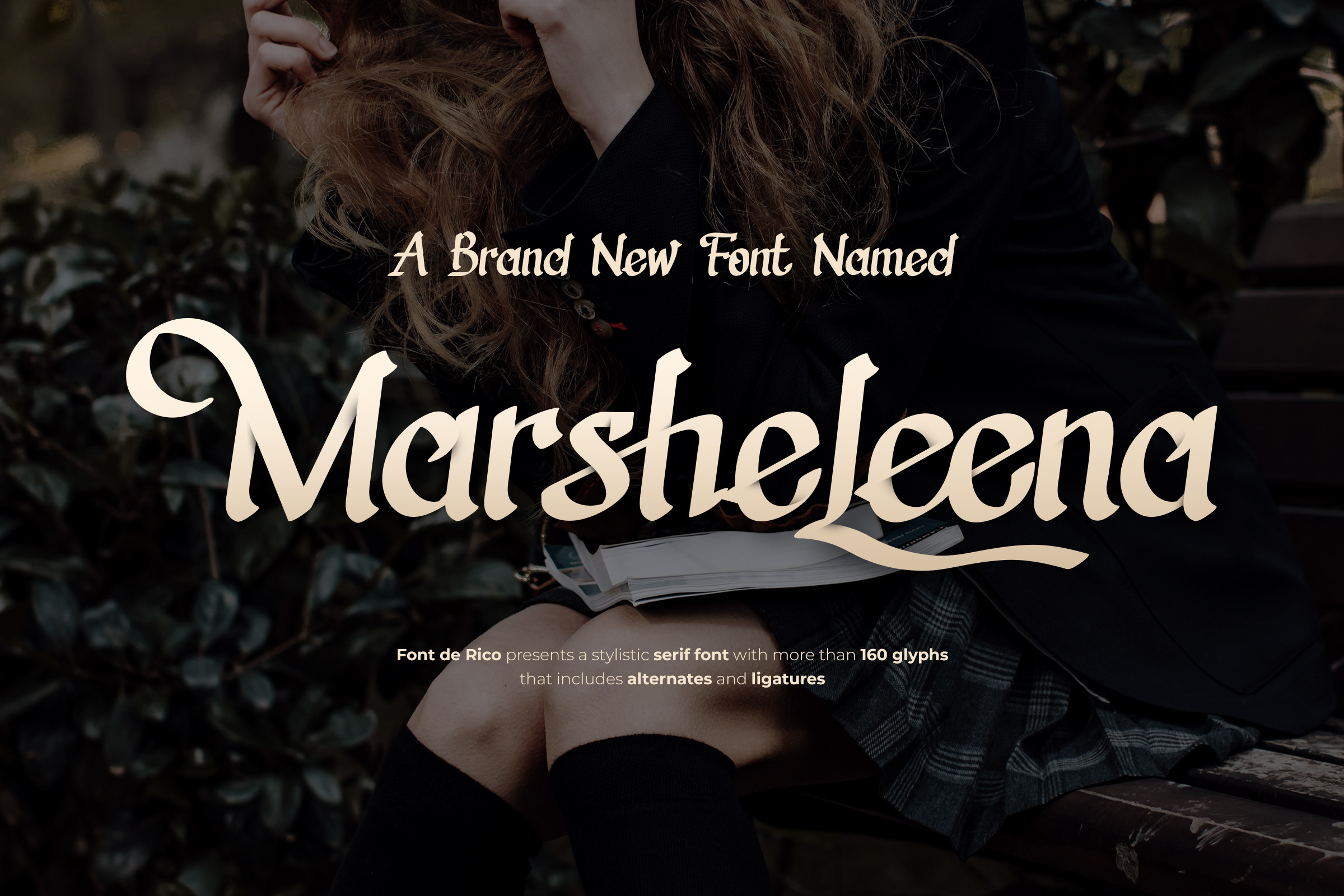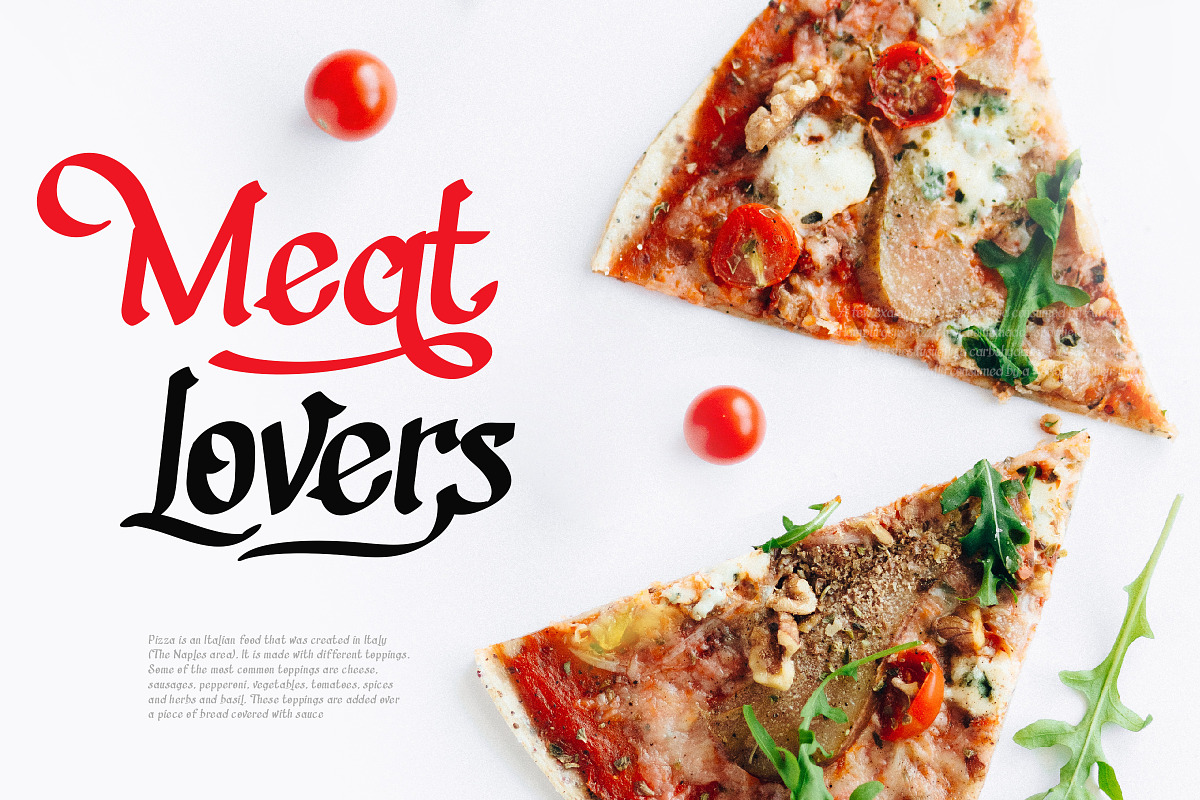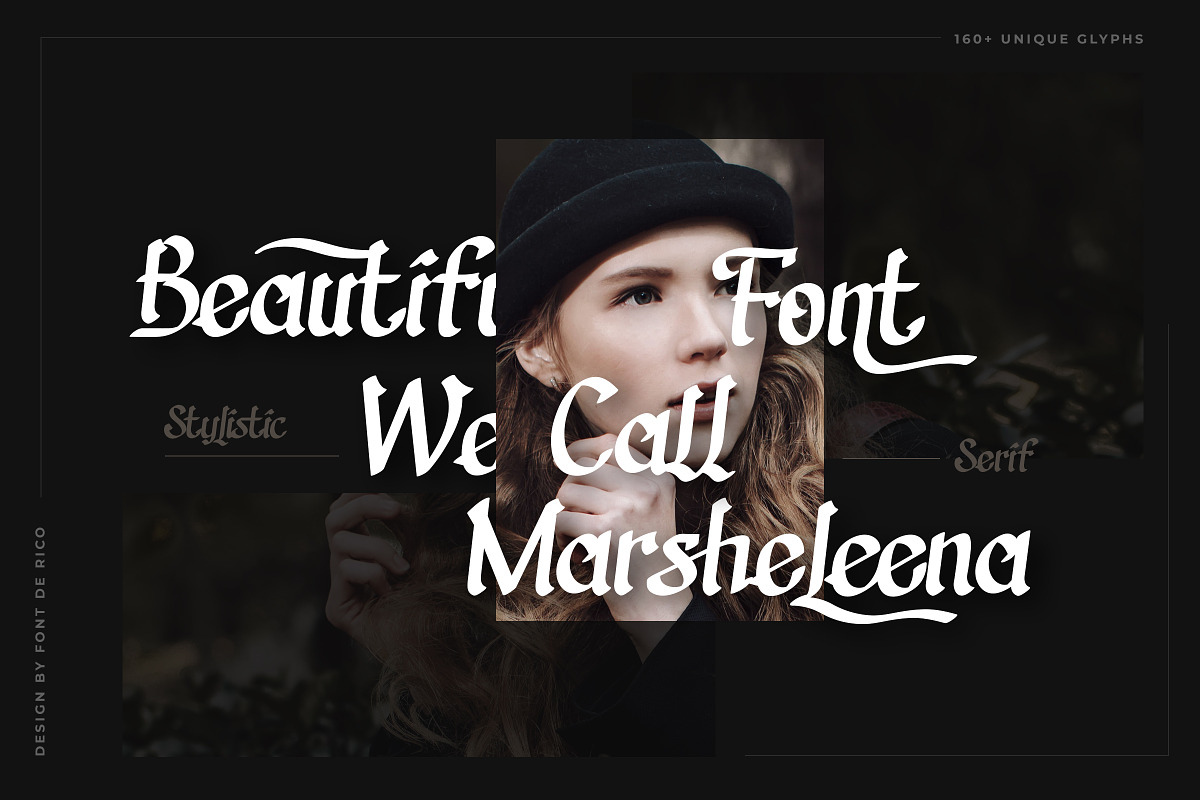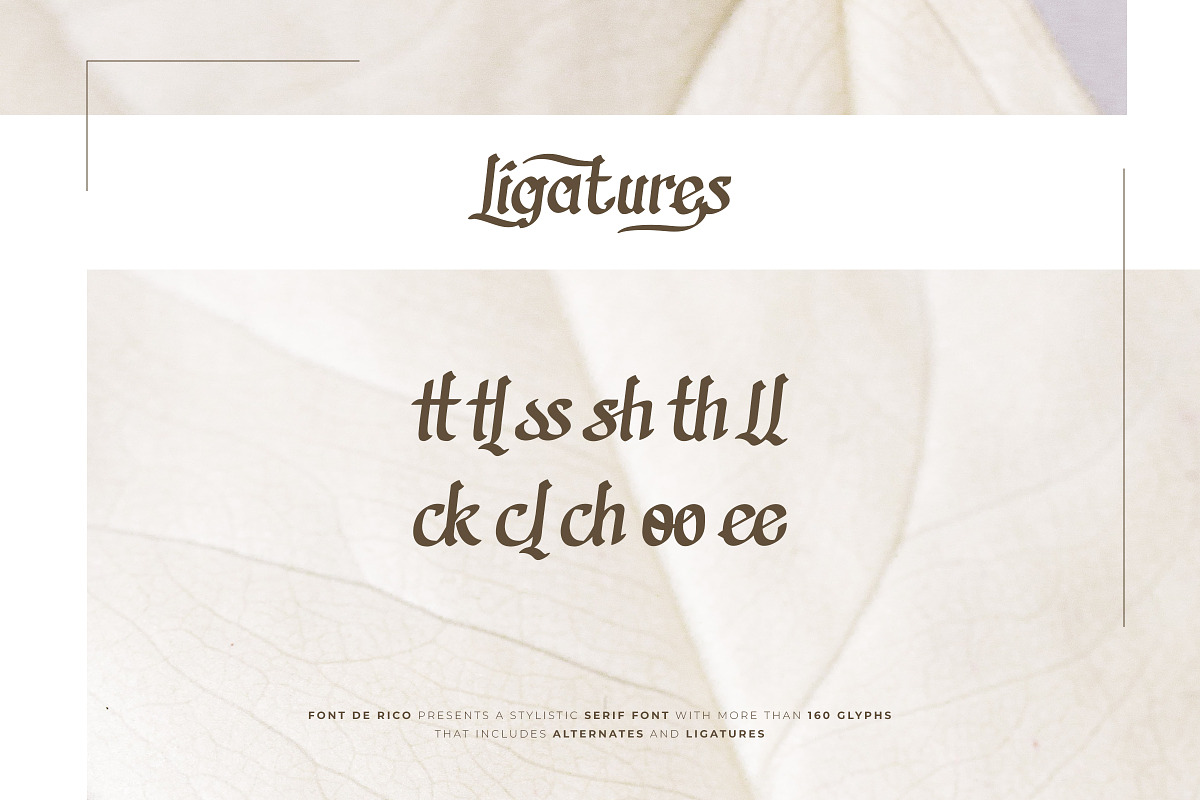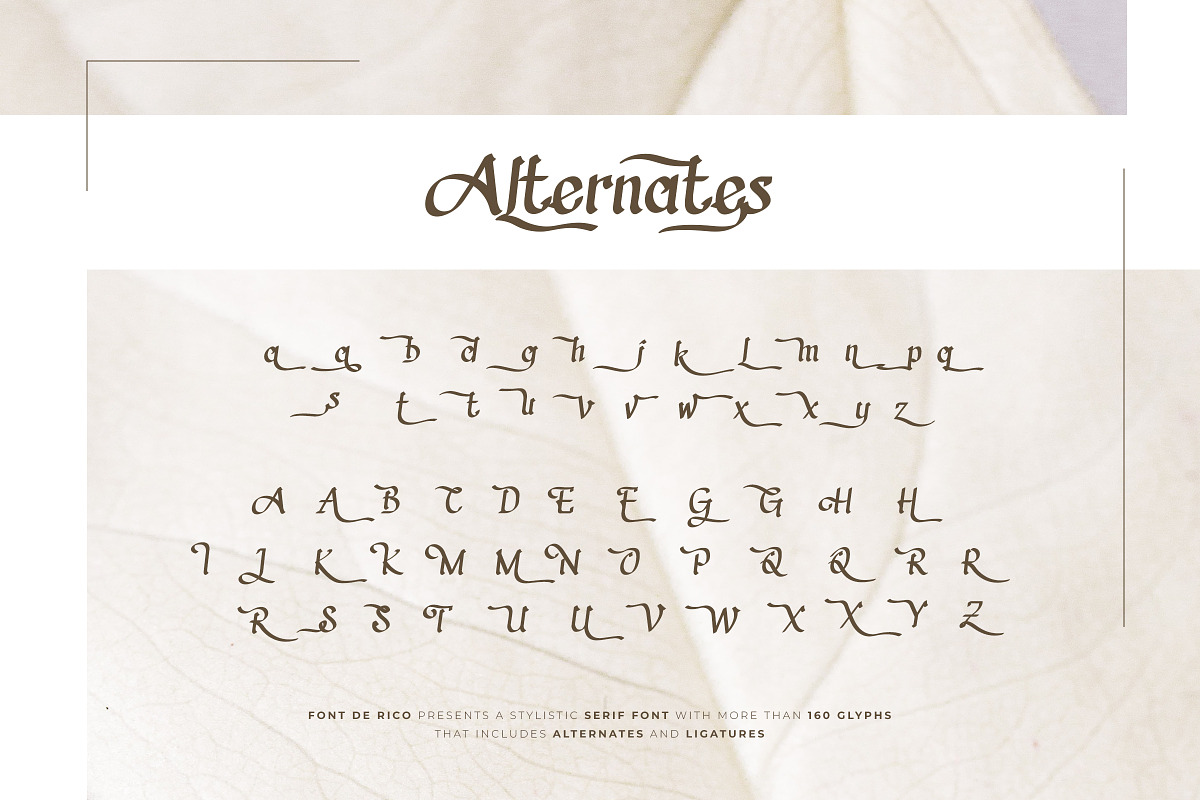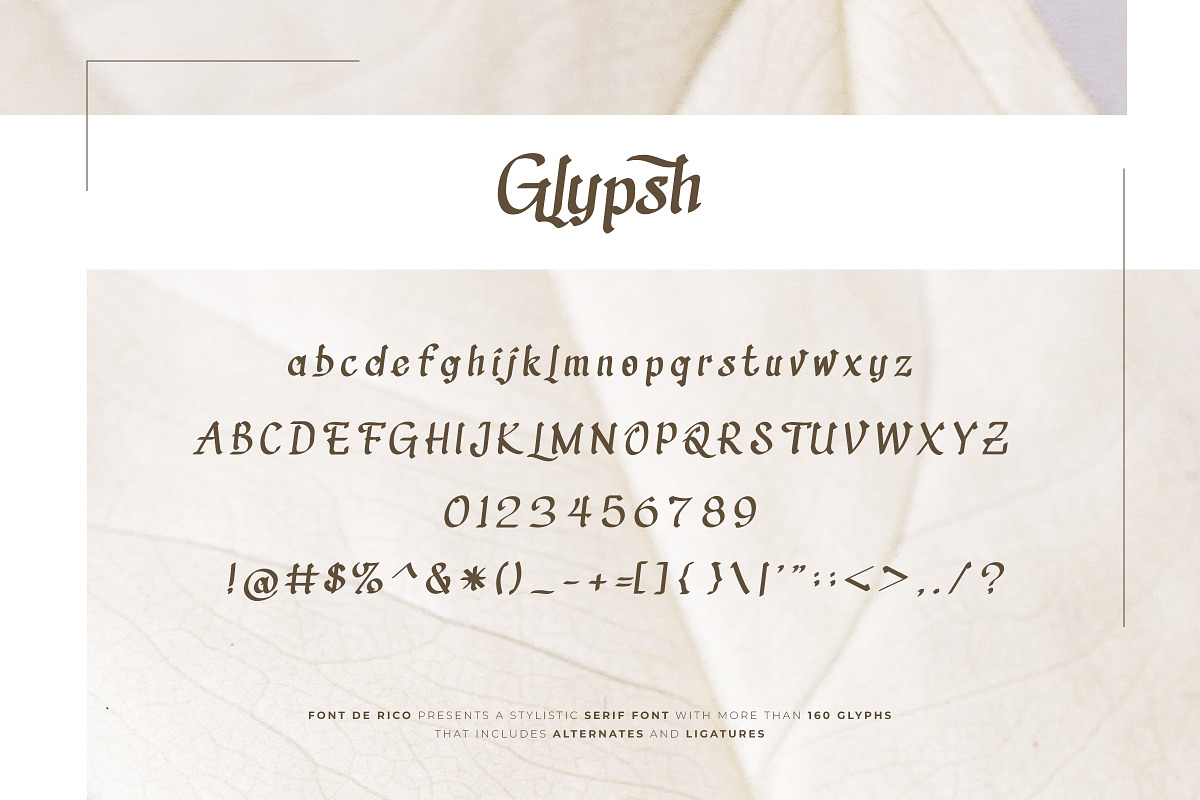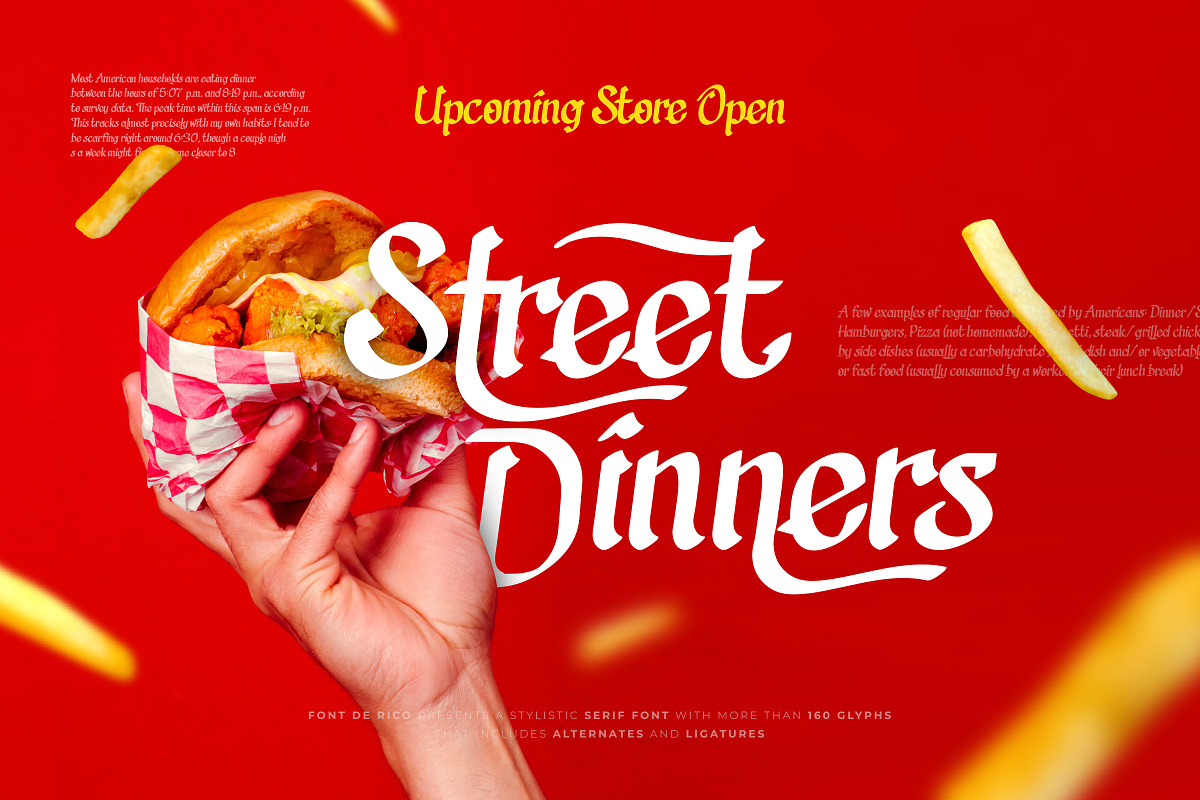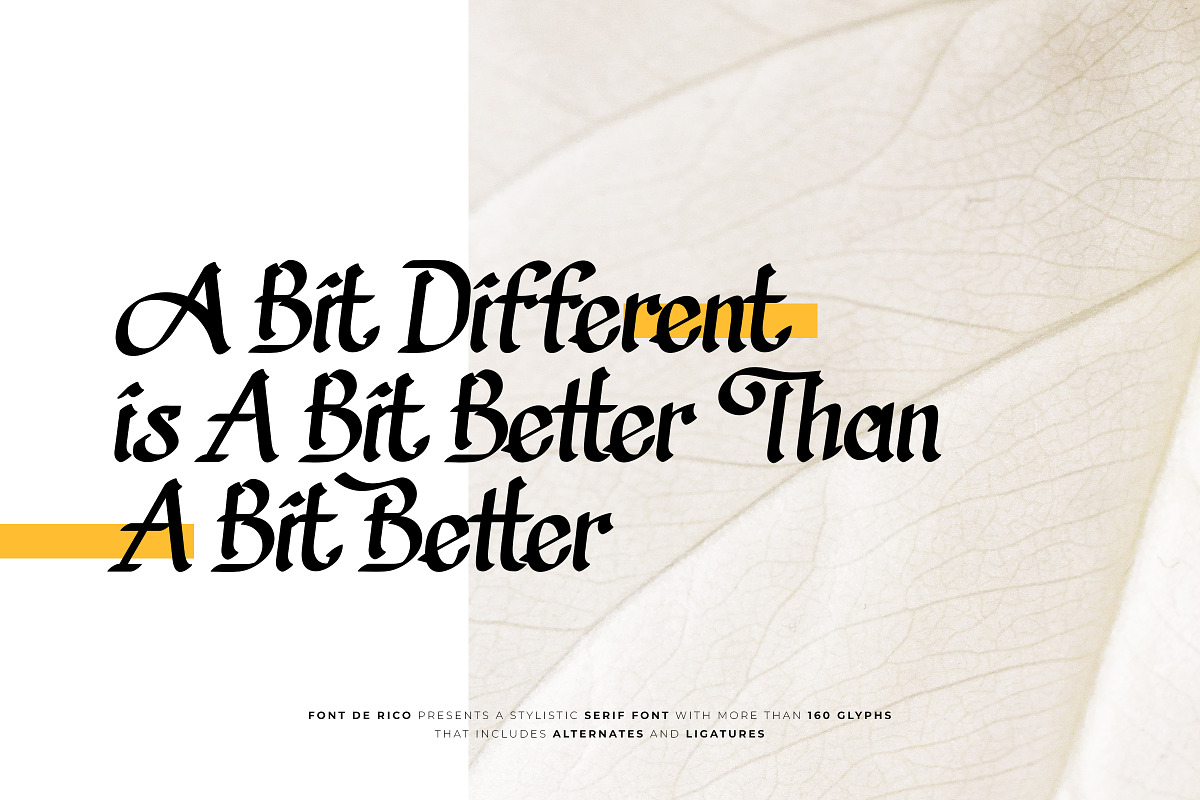
Marsheleena - Stylistic Serif Font
Marsheleena is a Font created by Font De Rico.
It's Serif Font basically, but it also can categorized as script font. This beautiful font will fit with various type of project, especially something classic and gothic. It contains more than 160 glyphs that include alternates and ligatures
- alternates